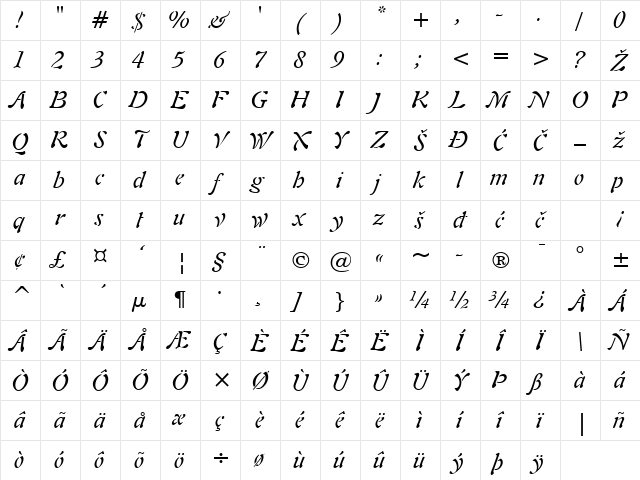
Freeform721 Italic Free Font
Freeform721 Italic
Complete Freeform721 Italic glyph index. Displaying only characters natively supported by Freeform721 Italic font.
Design Context for Freeform721
Freeform721 is a composed and adaptable typeface that performs quietly and consistently across a wide range of design contexts. The slanted form adds forward momentum and visual energy.